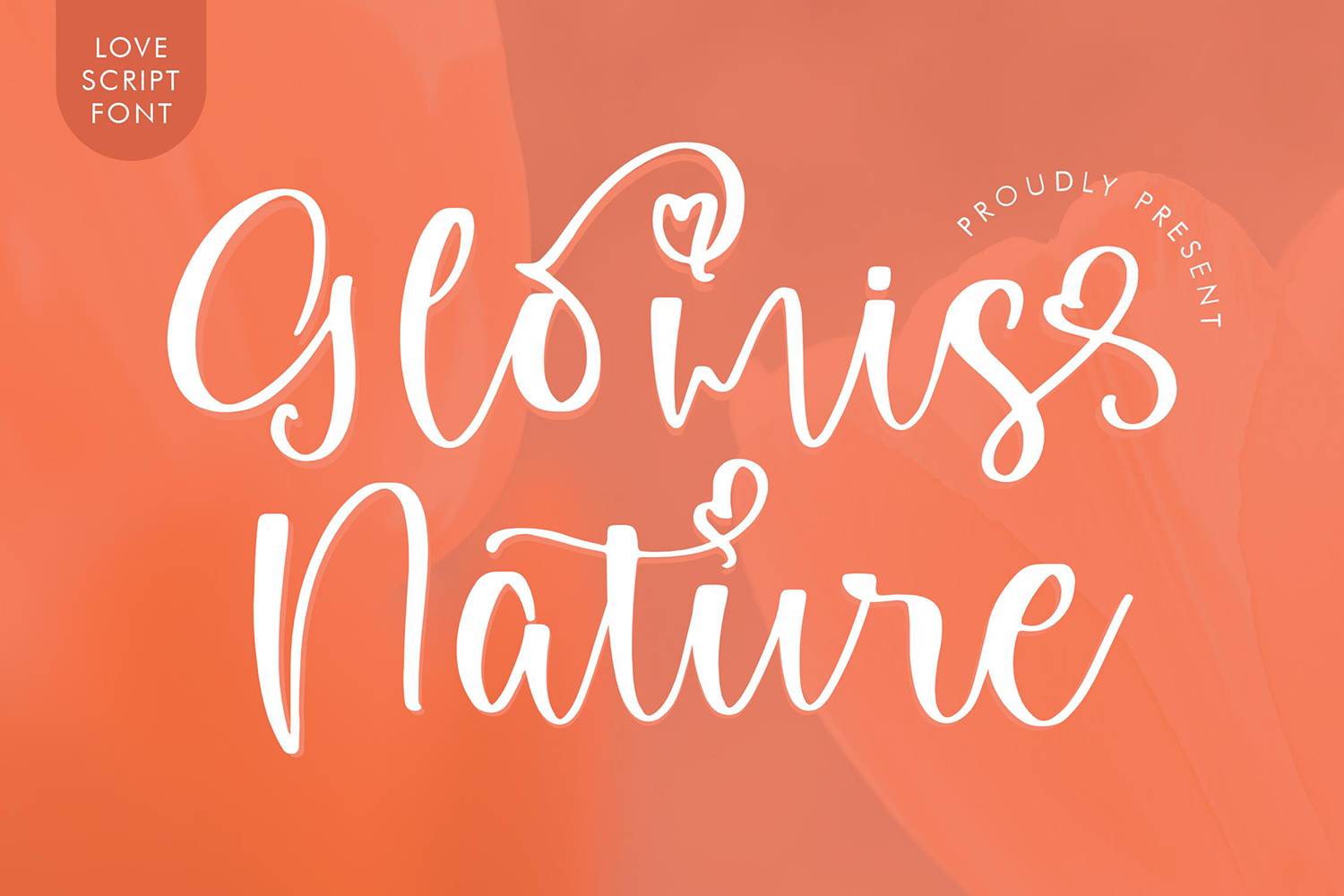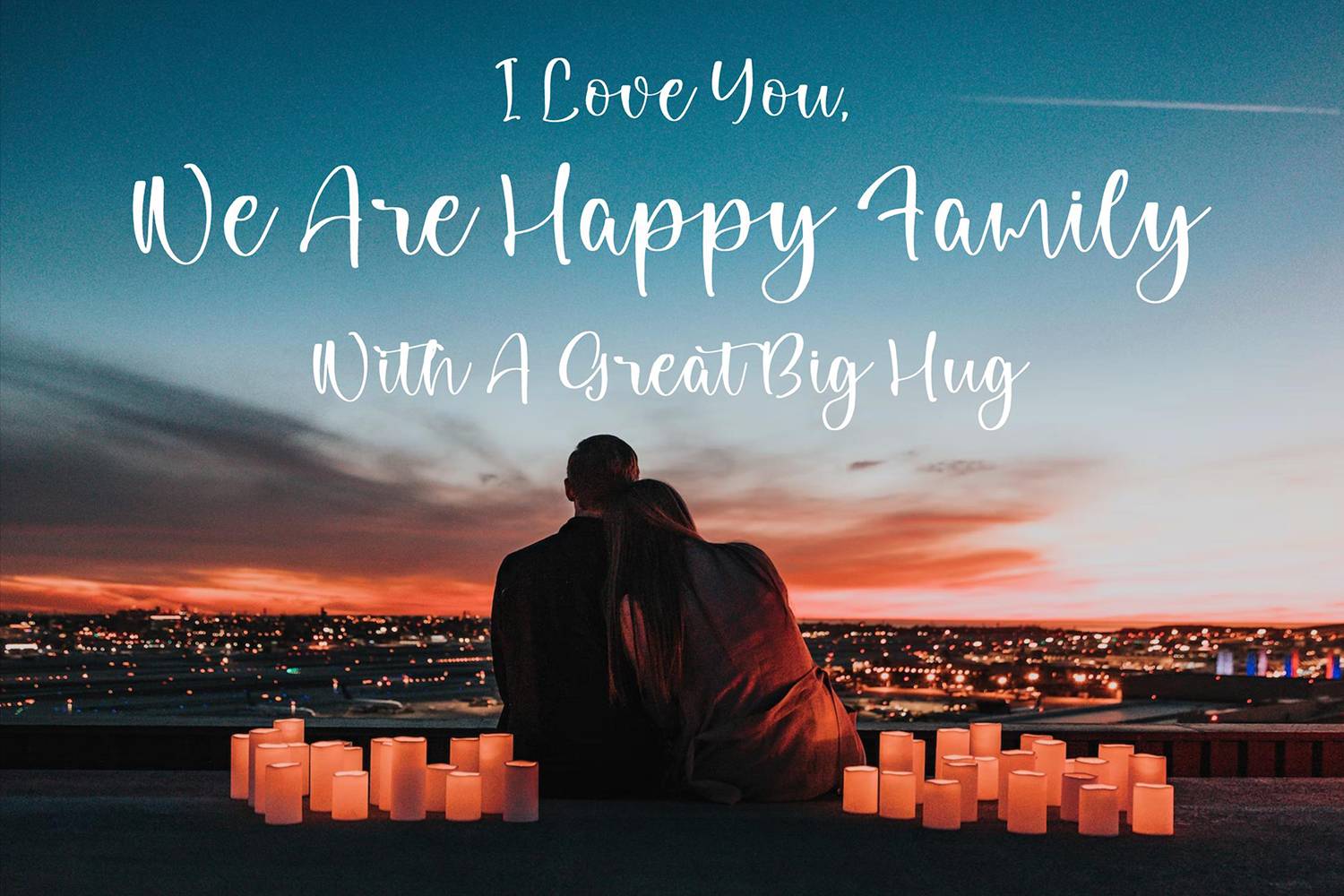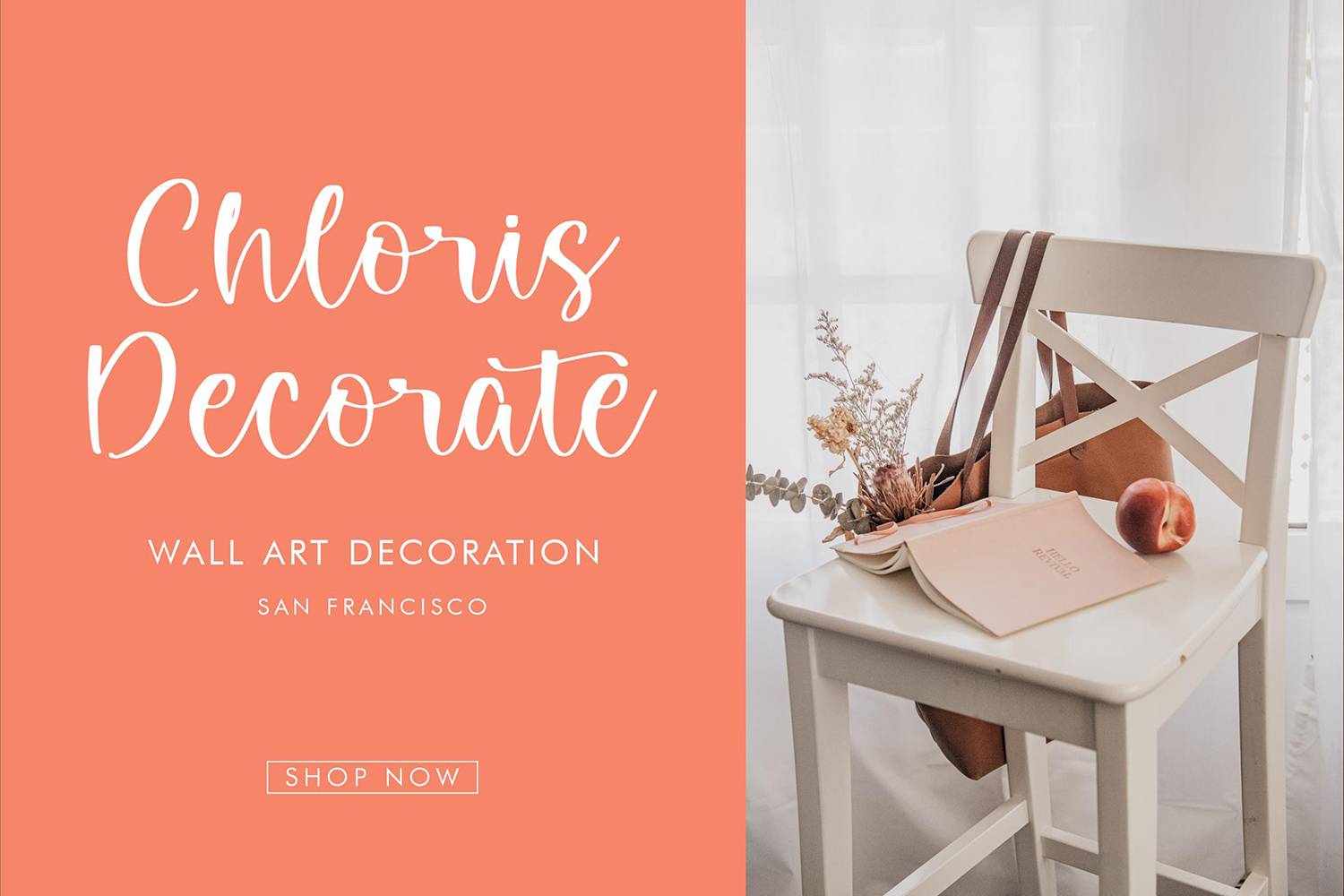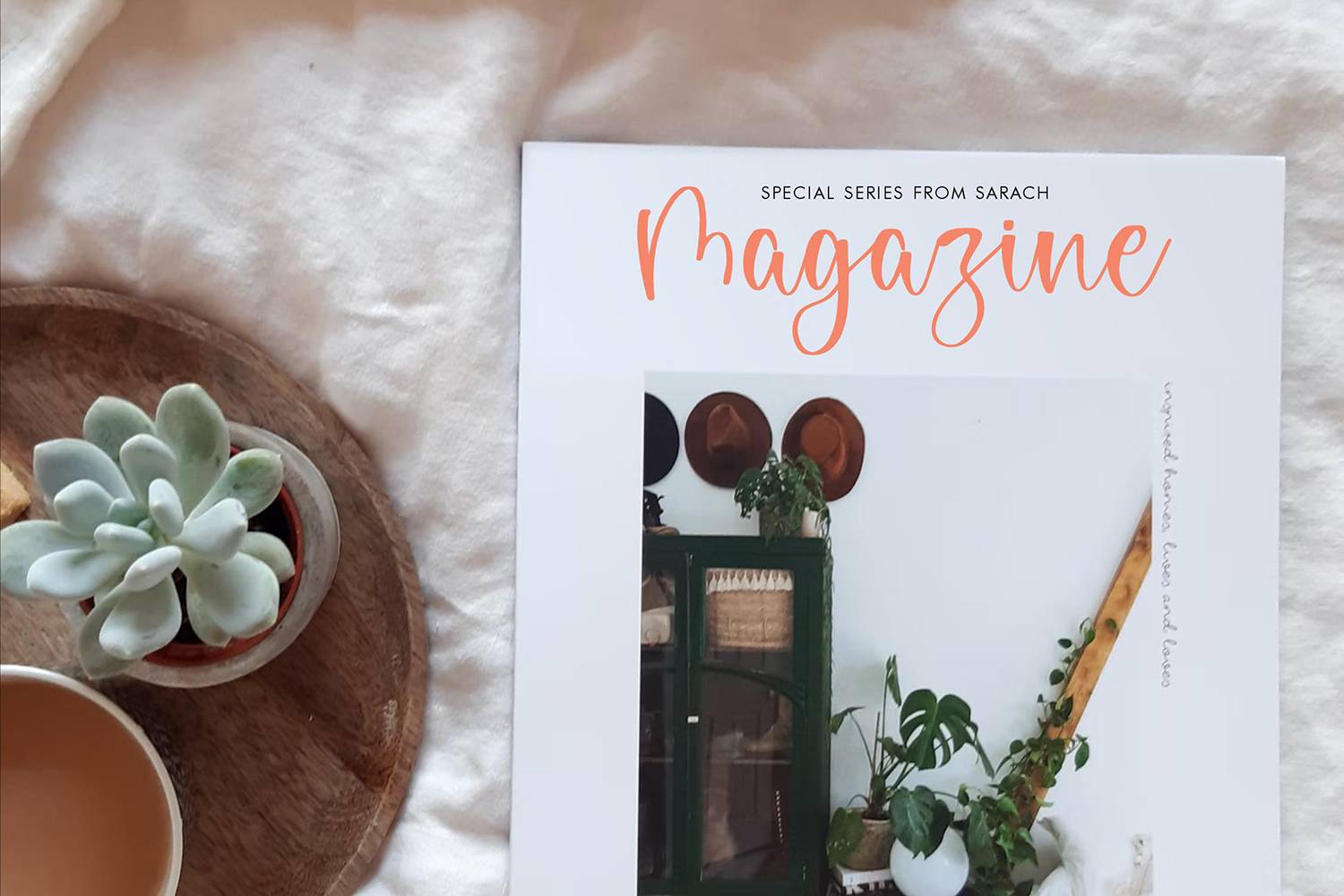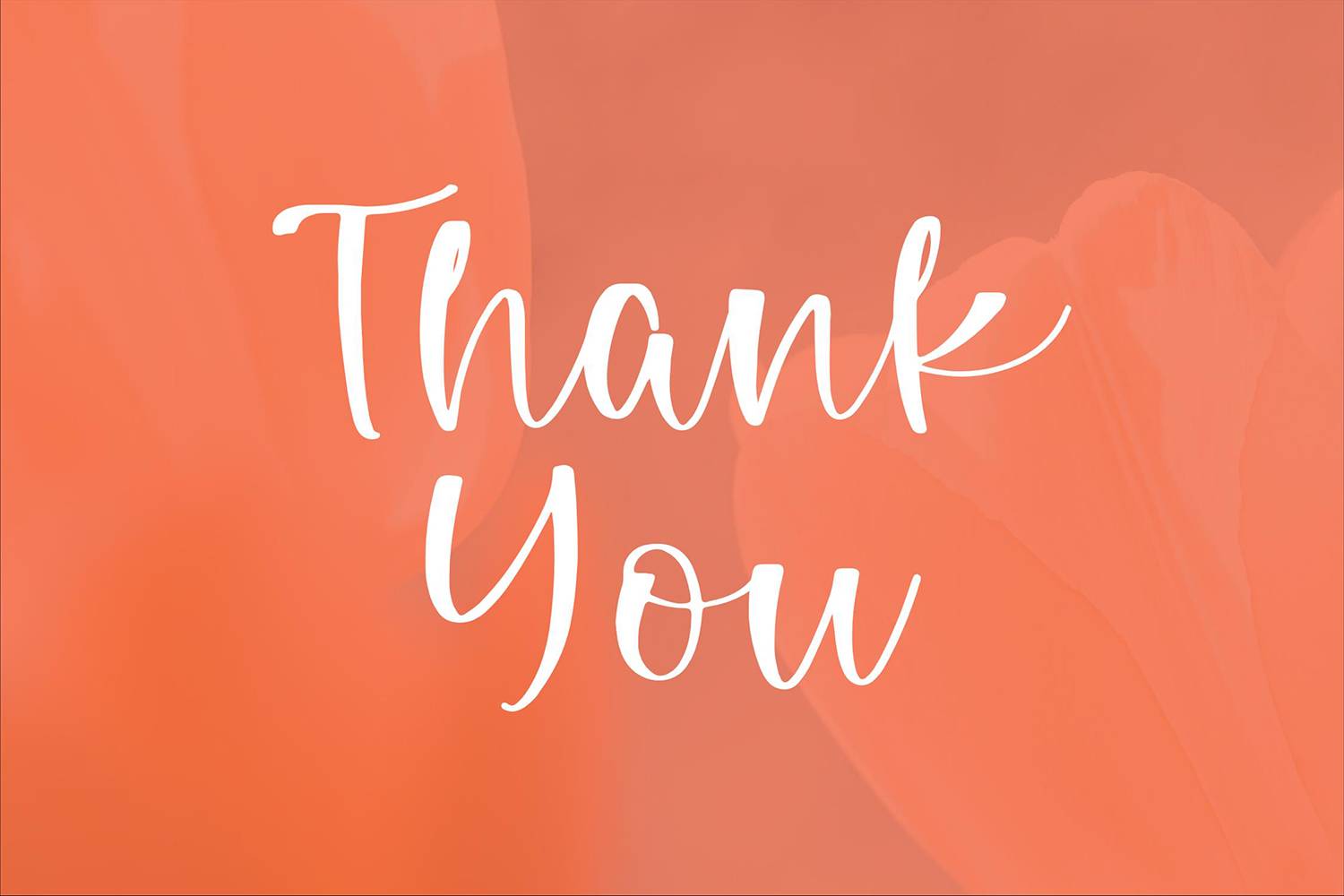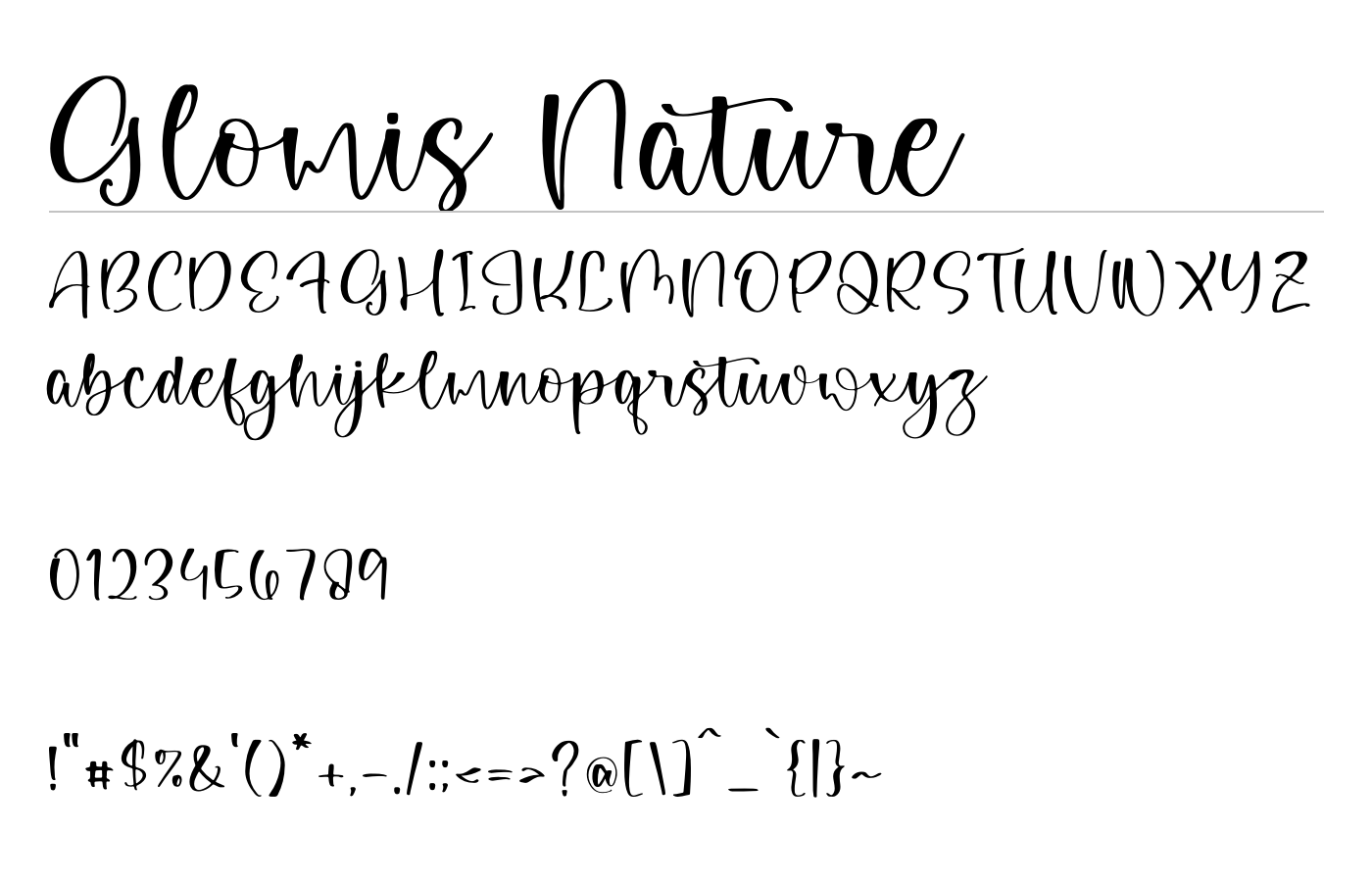
Glomis Nature is a charming handwritten script font with a lively, casual feel, featuring smooth, flowing strokes and playful letterforms that give it a warm and inviting personality. Its moderate weight and balanced contrast make it ideal for creative projects, branding, and invitations that seek a friendly yet elegant touch. This font shines in uses where a personal, natural vibe is desired, such as lifestyle blogs, fashion labels, and artisanal product packaging.
Glomis Nature Font
About Glomis Nature Font